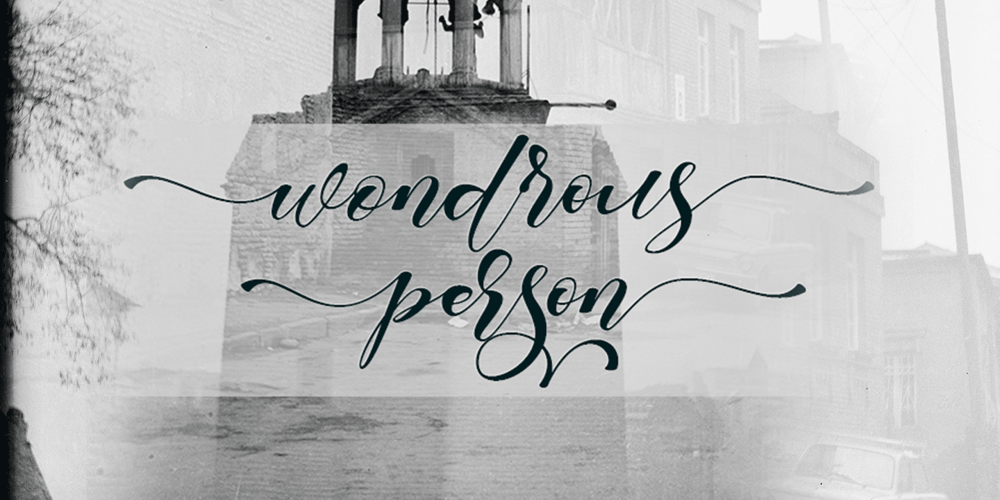
Wondrous Font Family was designed by Muhammad Akbar and published by Sinfa. Wondrous contains 1 styles and family package options. Wondrous with some new ideas with fonts that are perfect for all types of your project with alternative fonts both upper and lowercase and several types of underlines, such as advertising, branding, quotes, wedding designs, graphic designs, logos for online or offline business, photography, and more. . -other. Make your business more memorable!